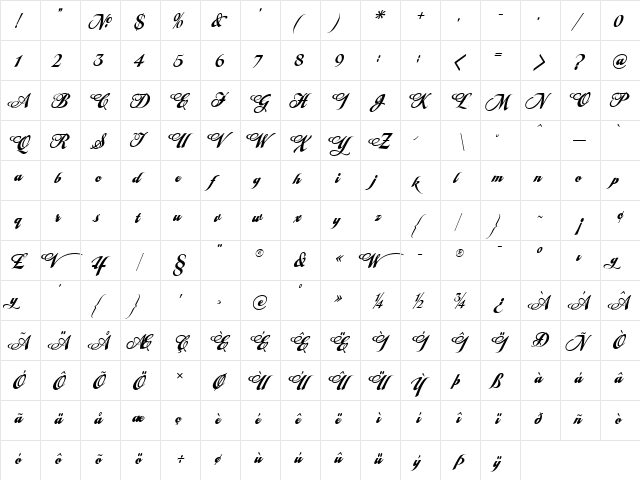
LHF Tideway Classic Script Regular
Design Context for LHF Tideway Classic Script Typeface
LHF Tideway Classic Script wears its vintage influences proudly, with letterforms that recall mid-century signage, classic packaging, and nostalgia-driven design.
Ideal for diner signage, record shop branding, 70s/80s-themed projects, and heritage product labels.
Font Pairing: Combine LHF Tideway Classic Script with a simple slab or neutral sans — period-accurate companions reinforce the vintage feel without competing for attention.
Pro Tip: Lean into LHF Tideway Classic Script's period character by pairing it with aged paper textures, muted colour palettes, and vintage illustration styles.